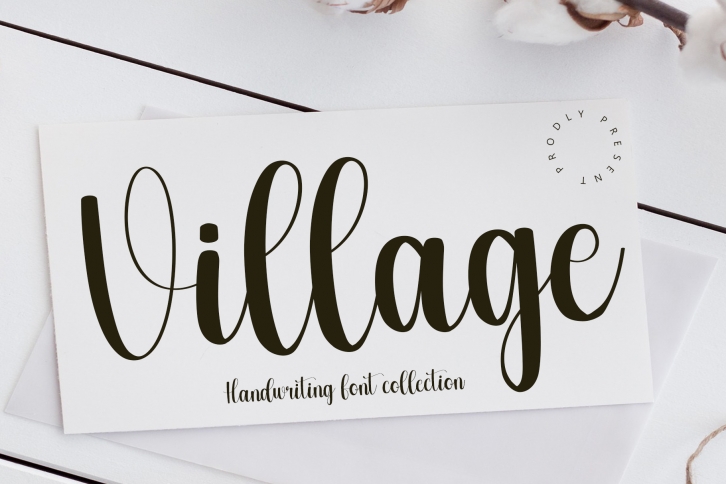
Village is an adaptable and fashionable handwritten font. This delicate script font has a wide spectrum of applications ranging from greeting cards to headlines and logos.